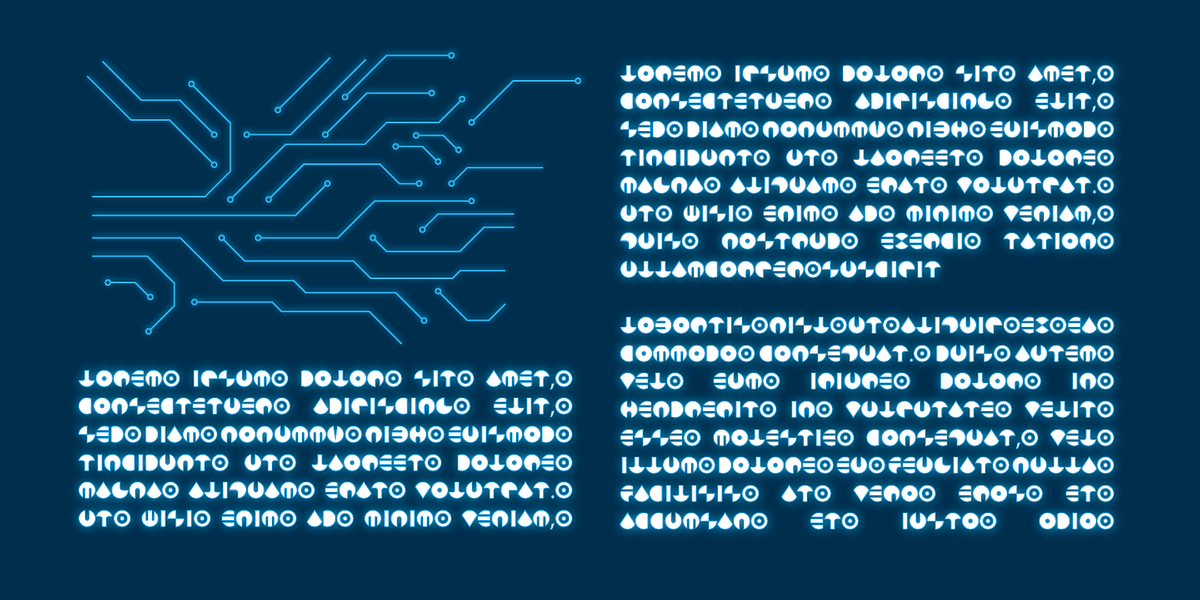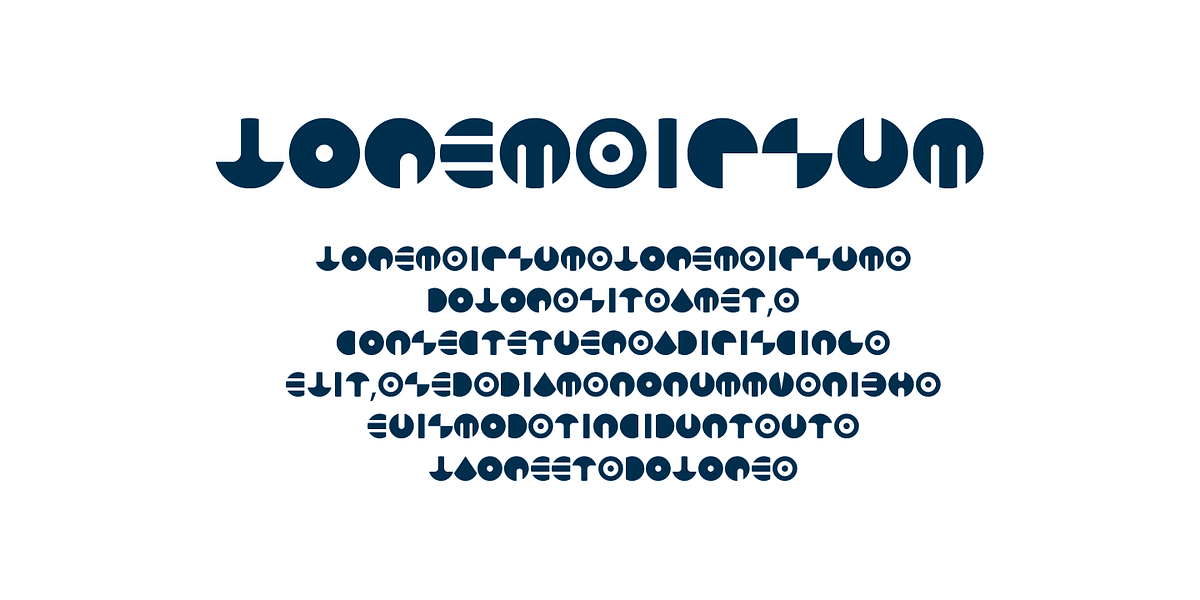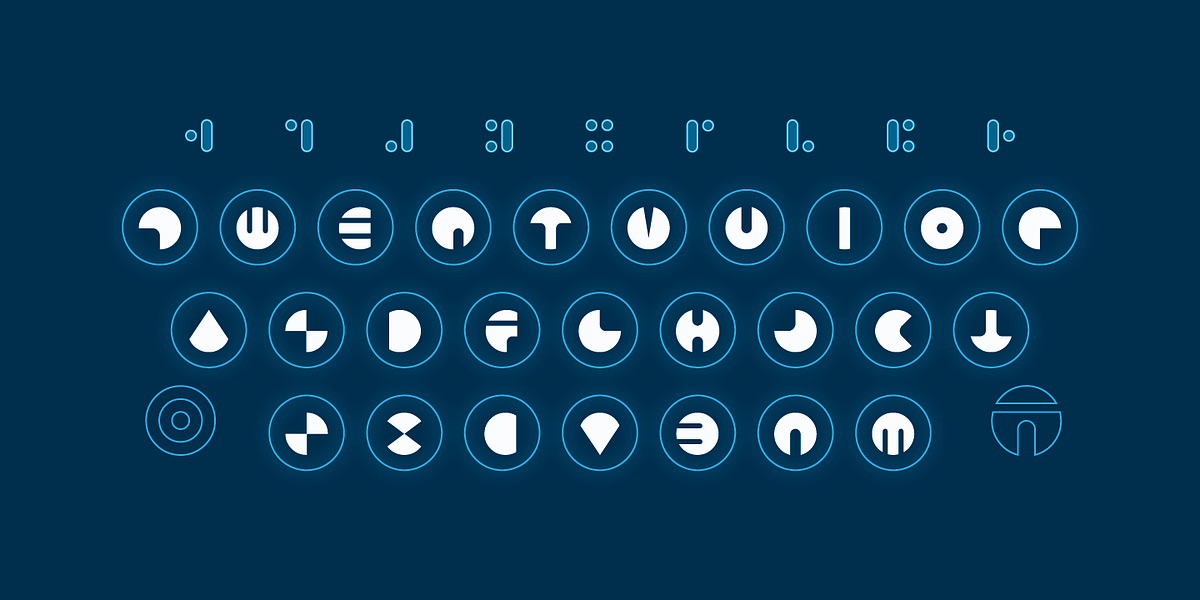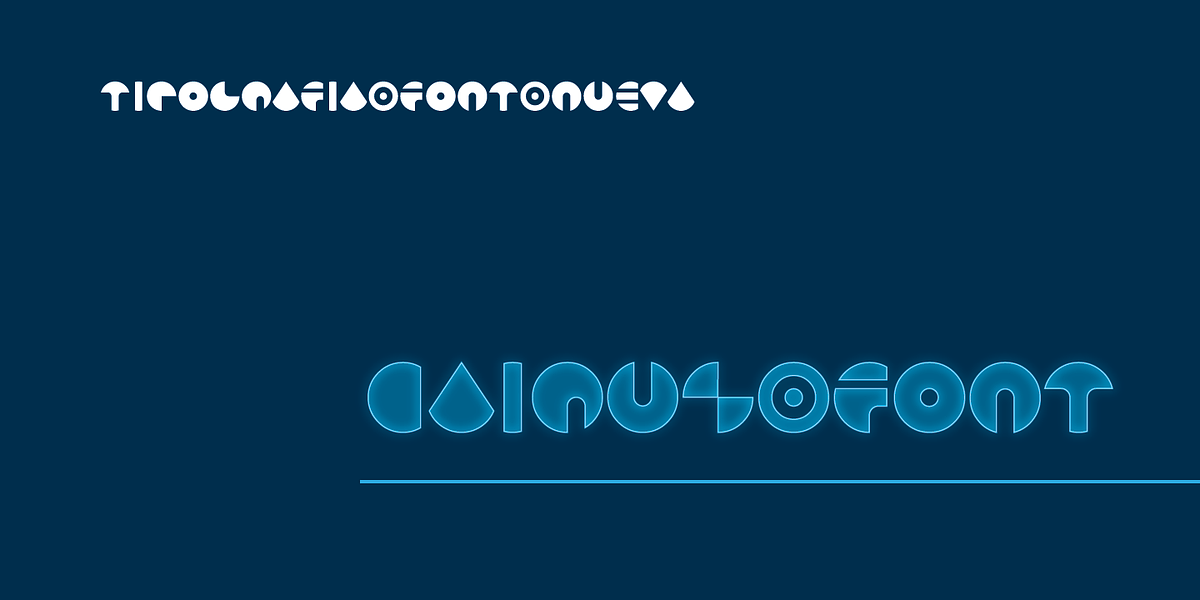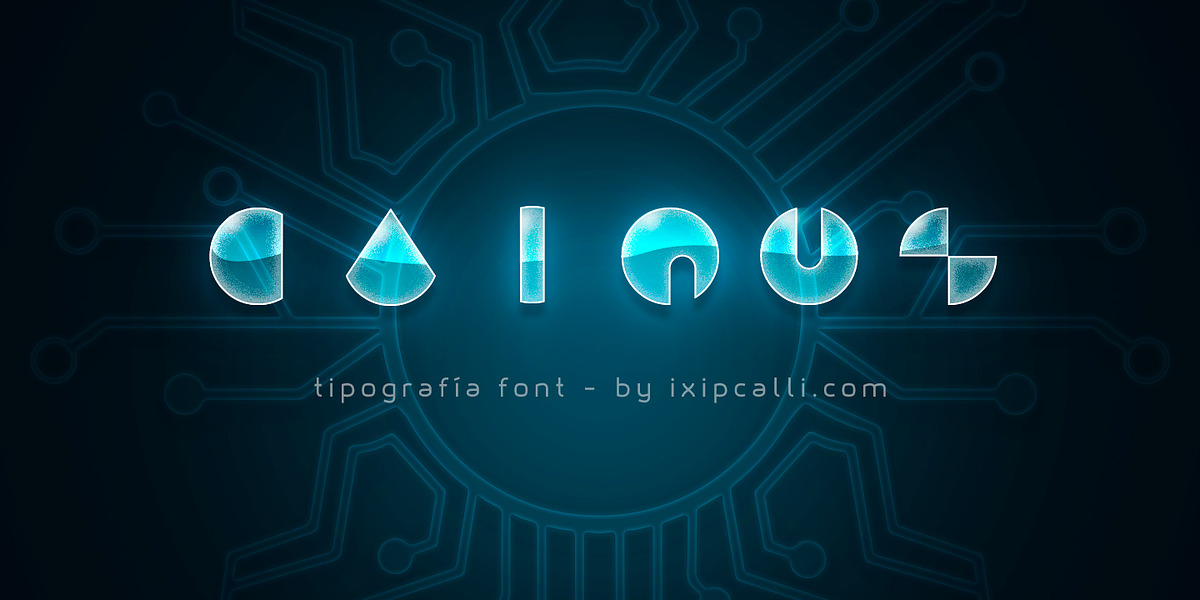
Cairus
Cairus was a typeface created for a video game project that needed to represent a modern and futuristic writing style. Although the project did not go ahead, the typeface is available if you need to include a different font style.